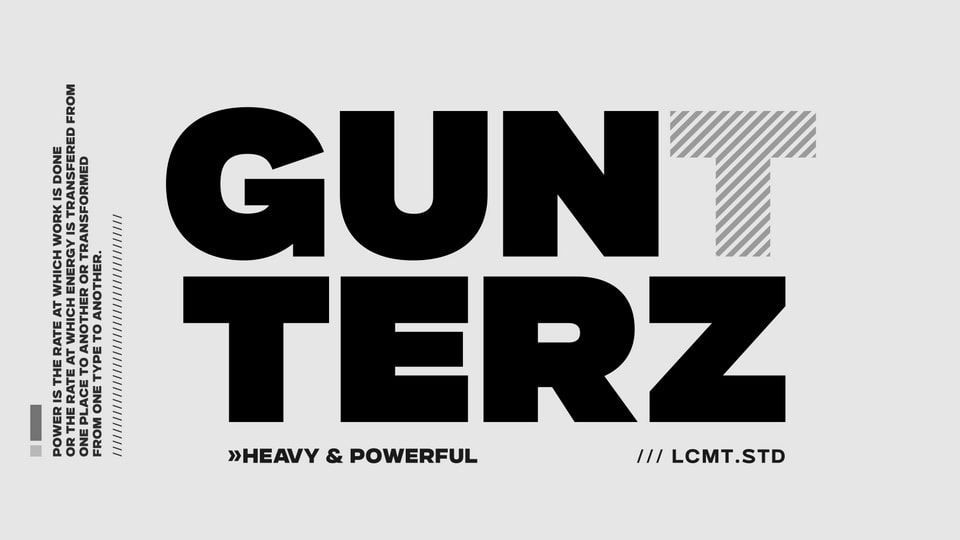
Download Gunterz font, a bold and powerful all-caps sans serif typeface to make your message stand out, it can be the choice to maximize your goals. Gunterz is suitable for poster titles, packaging design, headlines, logotypes, motion graphics, movie titles, sports promotion and future technology.
Designer: Locomotype